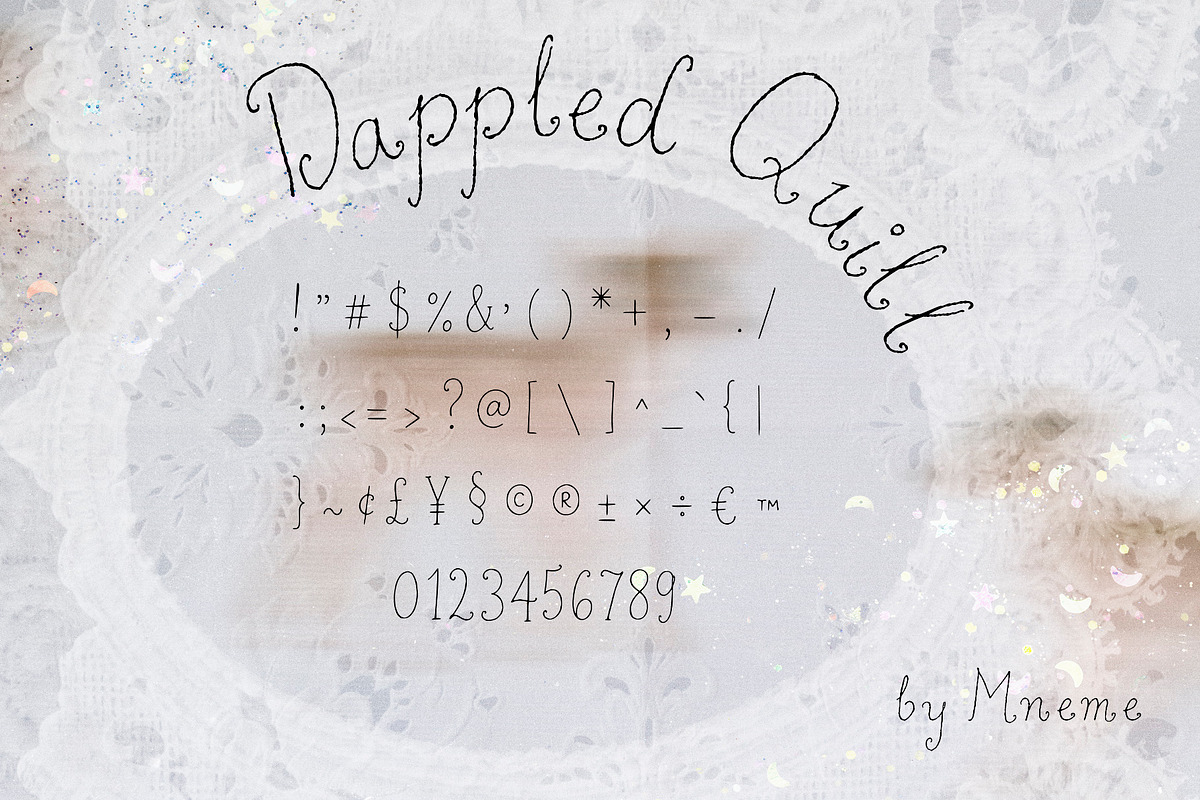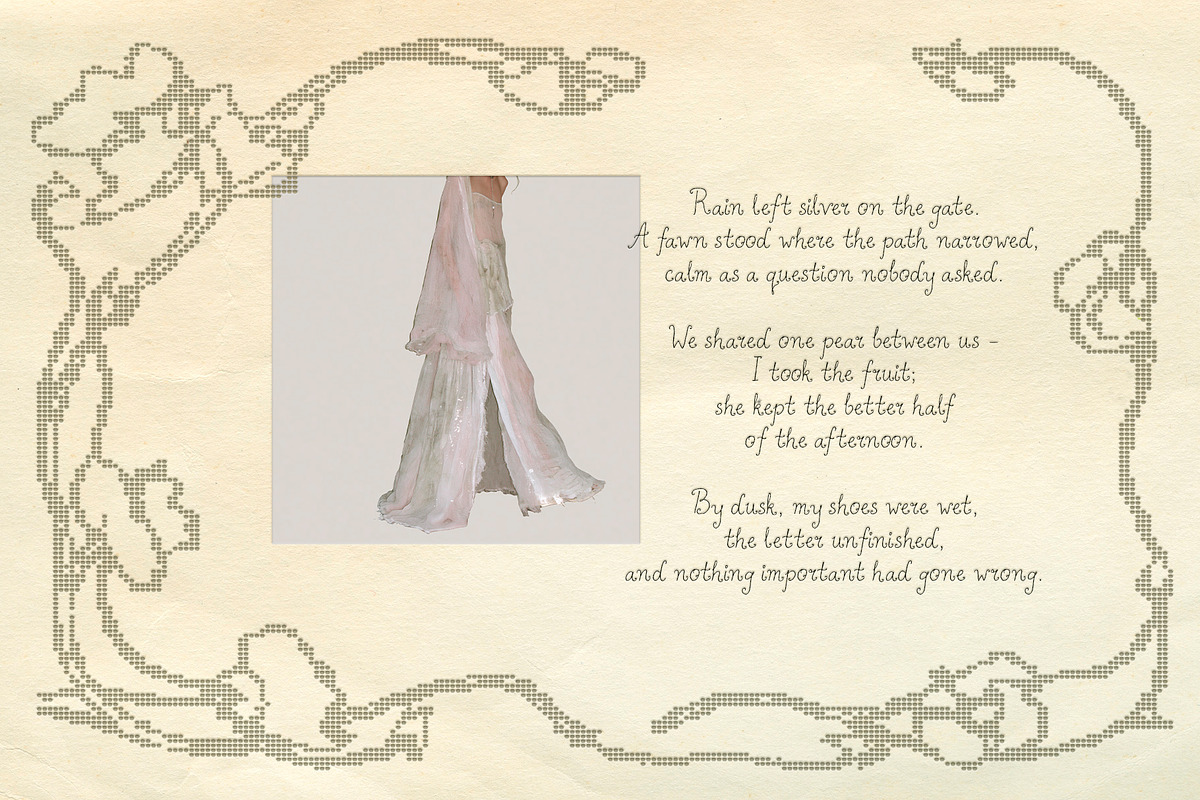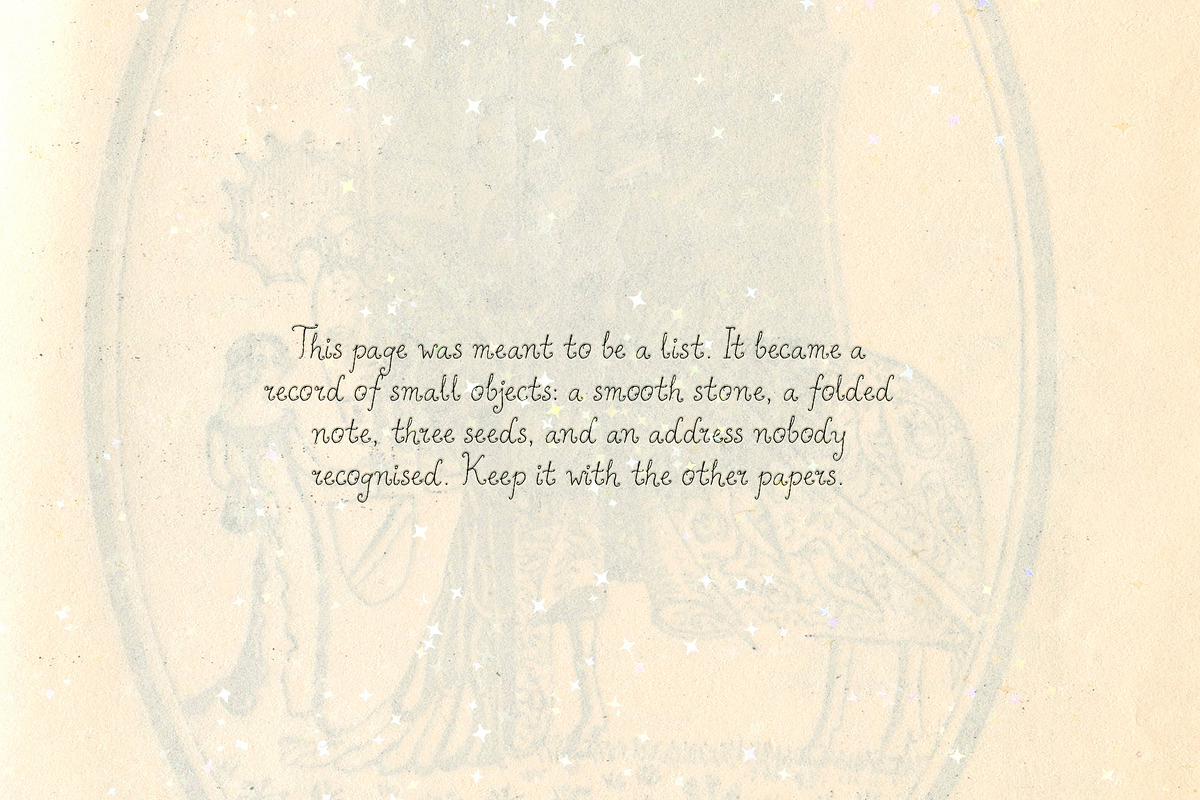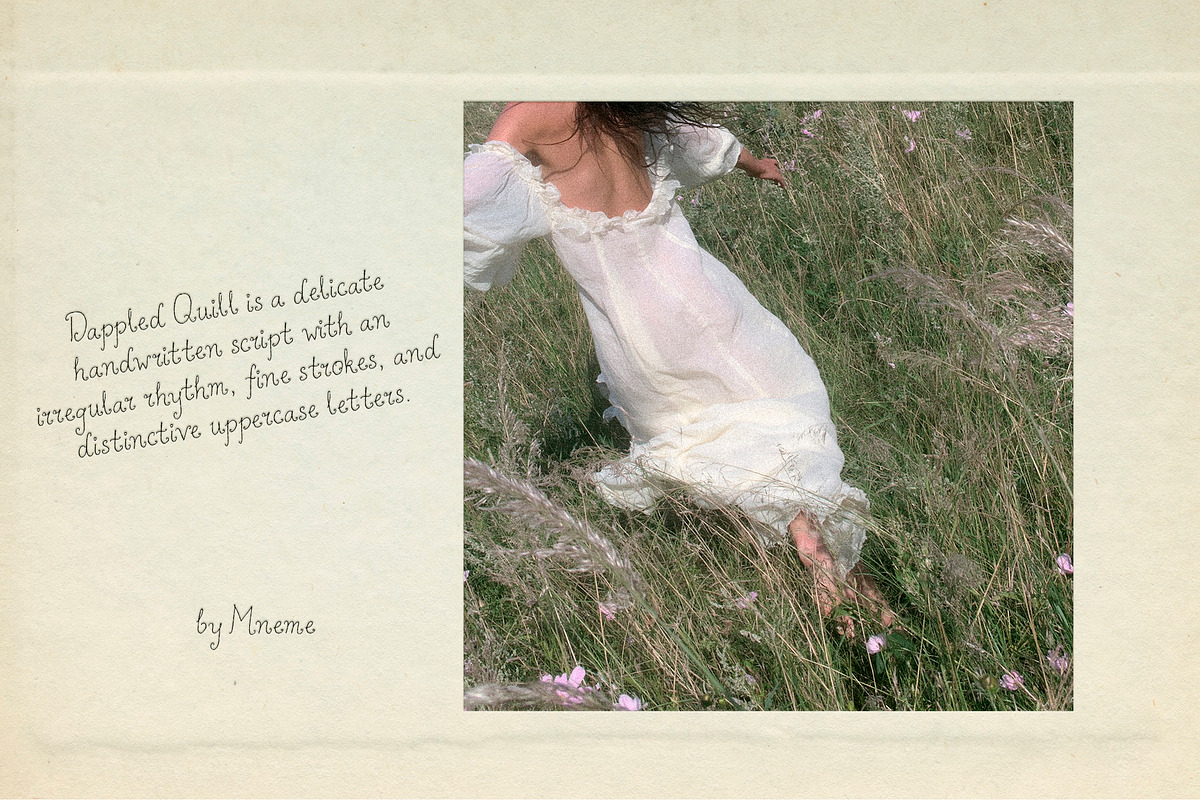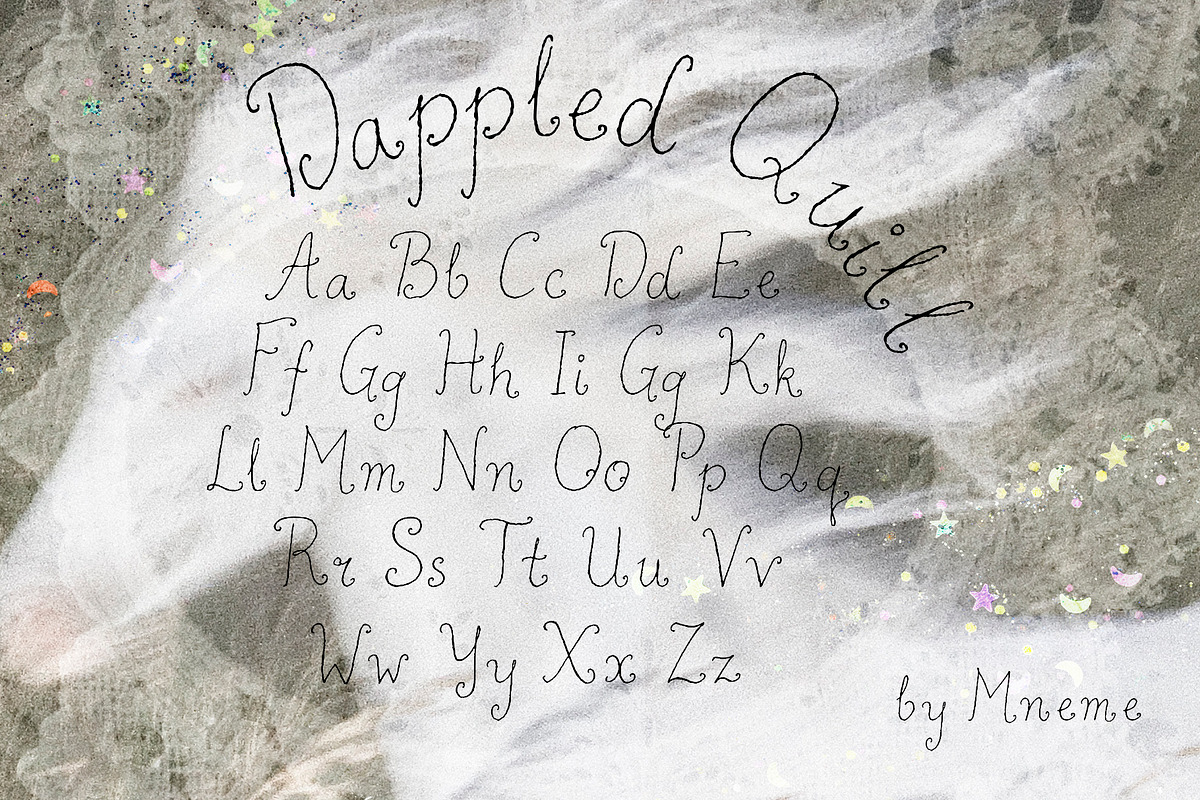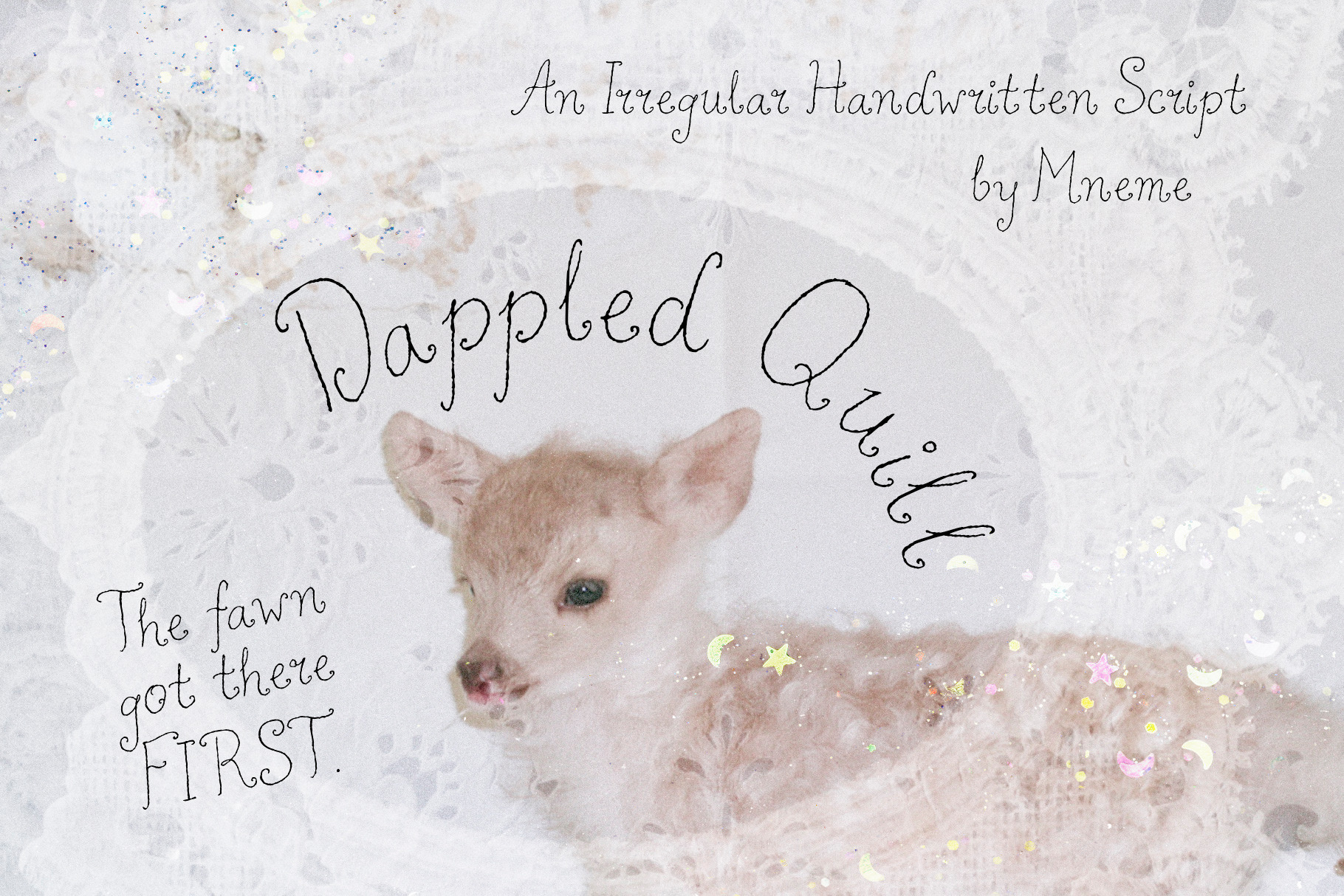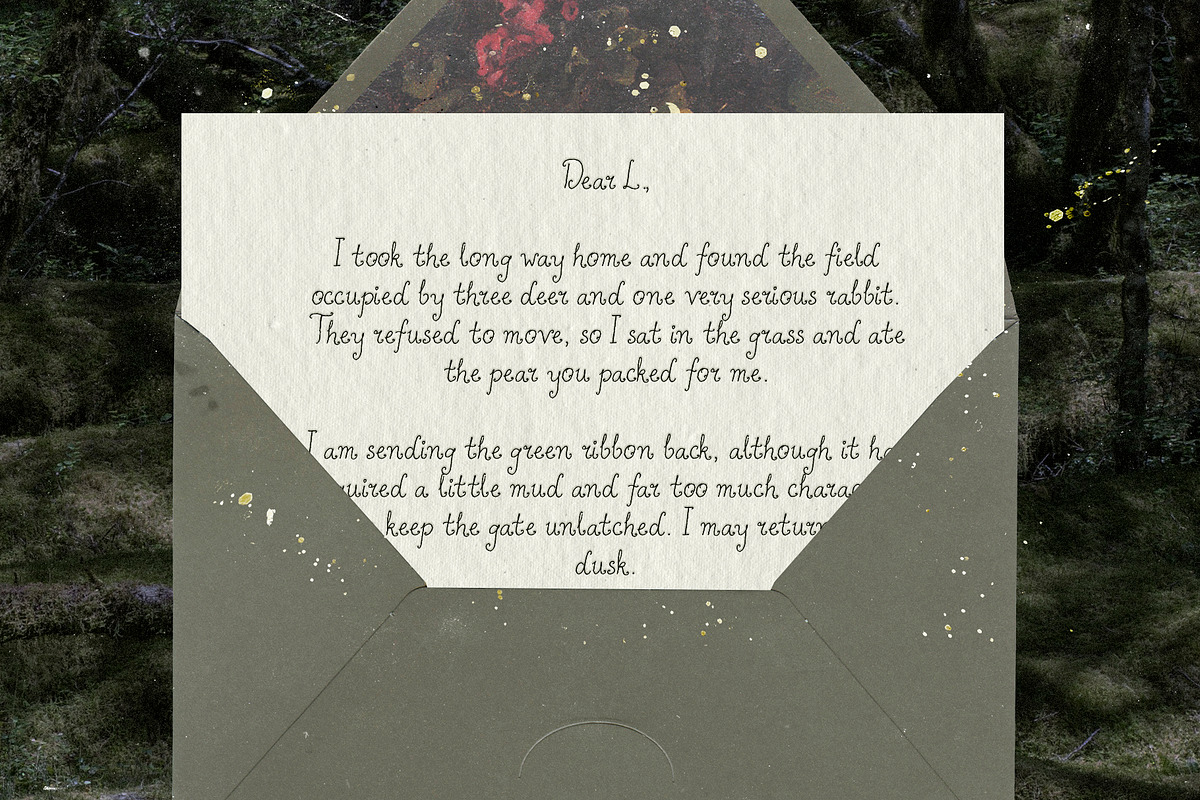
Dappled Quill Handwritten Font
Dappled Quill is a delicate handwritten script with an irregular rhythm, fine strokes, and distinctive uppercase letters.
Its changing proportions and small inconsistencies preserve the character of personal handwriting. The font feels graceful without becoming formal, making it suitable for both expressive titles and smaller handwritten notes.
Use it for invitations, editorial layouts, book covers, journals, stationery, packaging, branding, handwritten annotations, greeting cards, and nature-inspired projects.